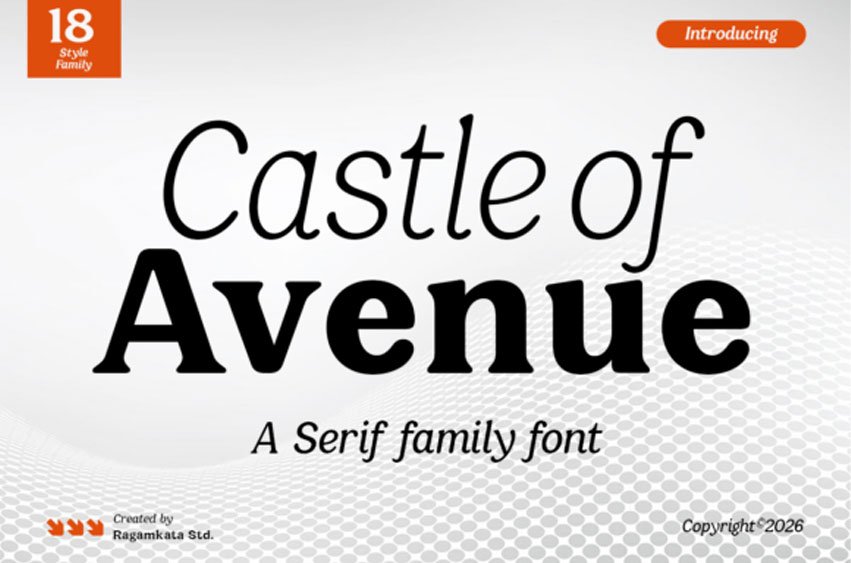
Castle of Avenue Font is a refined serif family font designed to bring elegance, versatility, and timeless sophistication into modern design. Perfect for branding, editorial design, luxury packaging, fashion magazines, logos, and high-end visual identities, Castle of Avenue adapts effortlessly across various creative needs.
From delicate italic styles to bold and powerful weights, this font family allows designers to build cohesive and dynamic typography systems with ease.
Whether you’re crafting a premium brand identity, designing elegant publications, or creating stylish marketing visuals, Castle of Avenue delivers a polished and professional look.